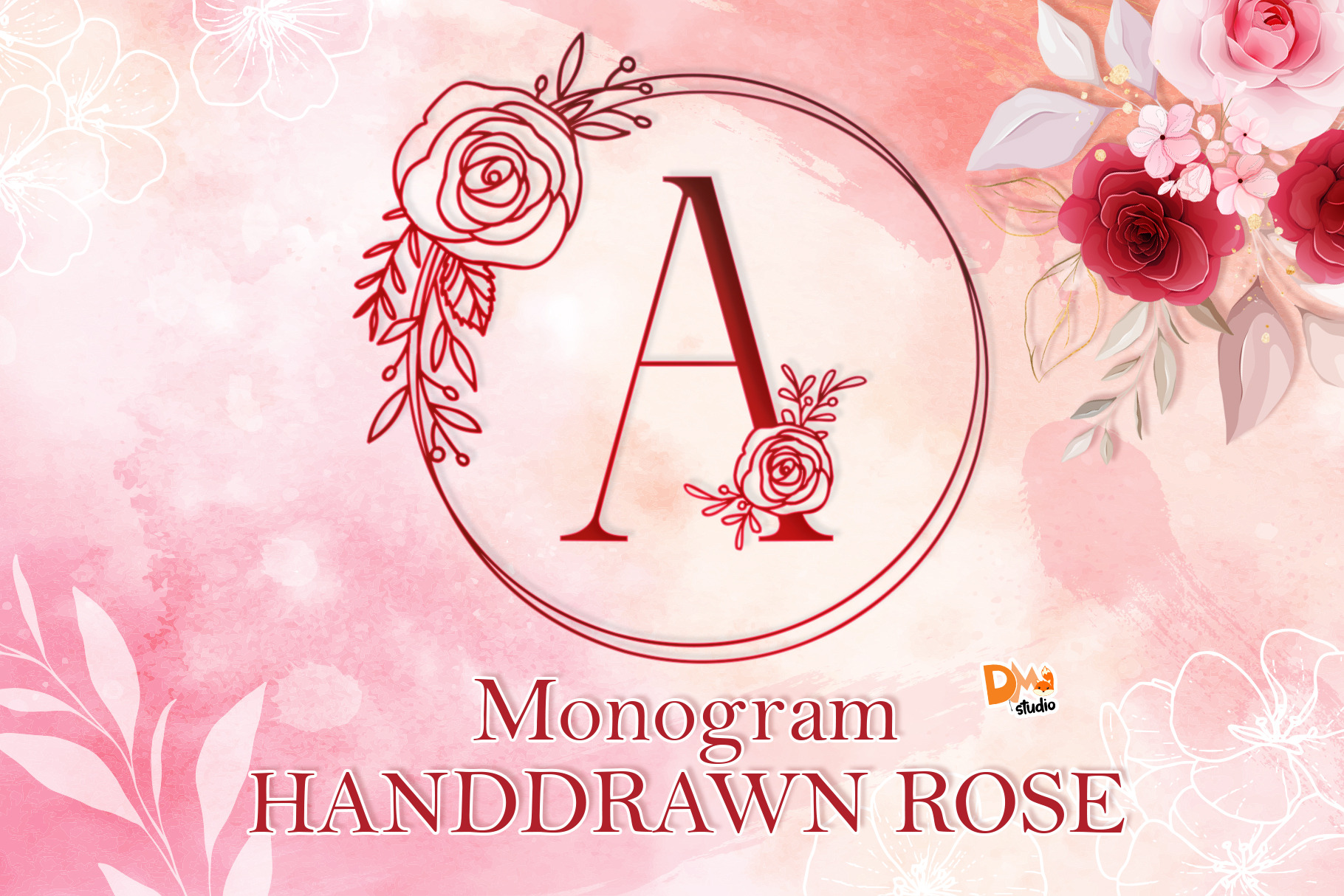
Monogram Handdrawn Rose Font
Monogram Handdrawn Rose Font is a decorative and elegant serif font with gorgeous handdrawn rose wreath design. Comes in two styles, that you can access through uppercase and lowercase. Great for your stamp, exclusive gift, diy projects, wedding invitation, business logo, branding and much more.
Features : -All in Caps in two styles